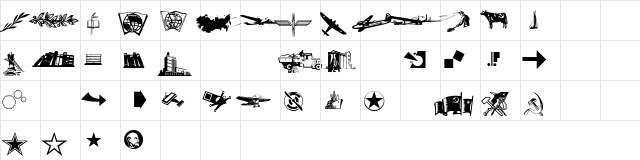
P22 Constructivist Extras
Style: Extras
Design Context for P22 Constructivist
P22 Constructivist is a composed and adaptable typeface that performs quietly and consistently across a wide range of design contexts.